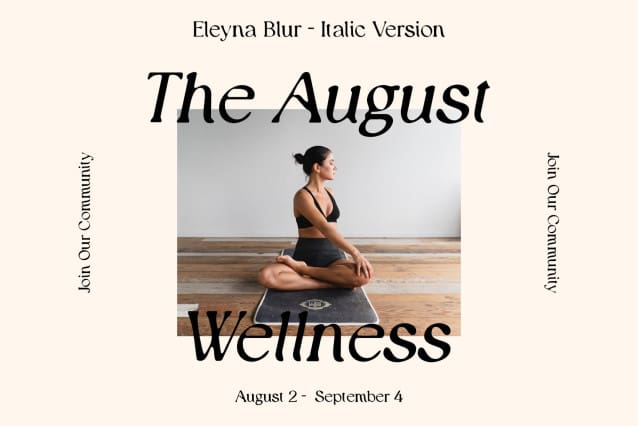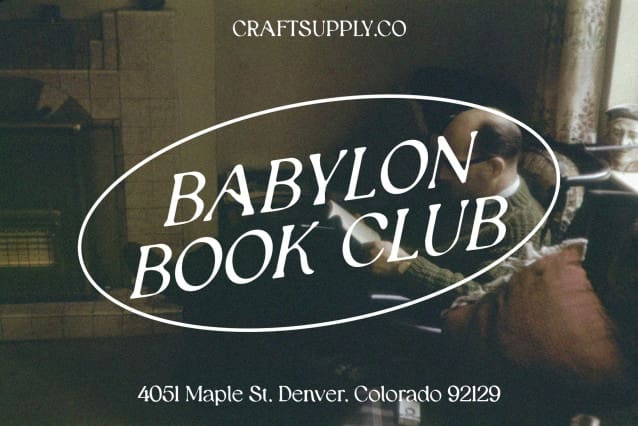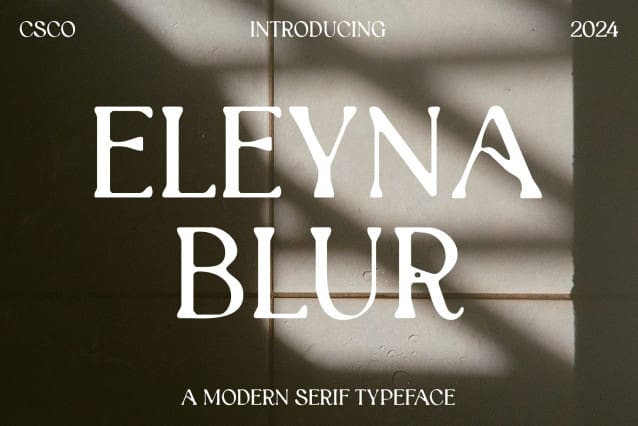
Eleyna Blur Font
Eleyna Blur Font is a serif font with a beauty vibe and a blur style, perfect for creative designs. Its elegant and refined appearance makes it ideal for a variety of artistic projects.
With its smooth lines and blurred details, Eleyna Blur offers a fresh take on serif fonts. The beauty vibe and blur style create a captivating and sophisticated look, ideal for posters, branding, and other projects that require a touch of elegance.
Whether you’re designing a wedding invitation or creating a fashion magazine cover, Eleyna Blur is sure to make an impression. Its beauty vibe and blur style make it perfect for designs that demand attention and convey a sense of beauty and grace.
Despite its distinctive appearance, Eleyna Blur is versatile and easy to use. The font works well in both large and small sizes, making it suitable for a variety of applications, from headlines and banners to body text and more. With its blend of beauty vibe and blur style, Eleyna Blur adds a touch of sophistication to any design.